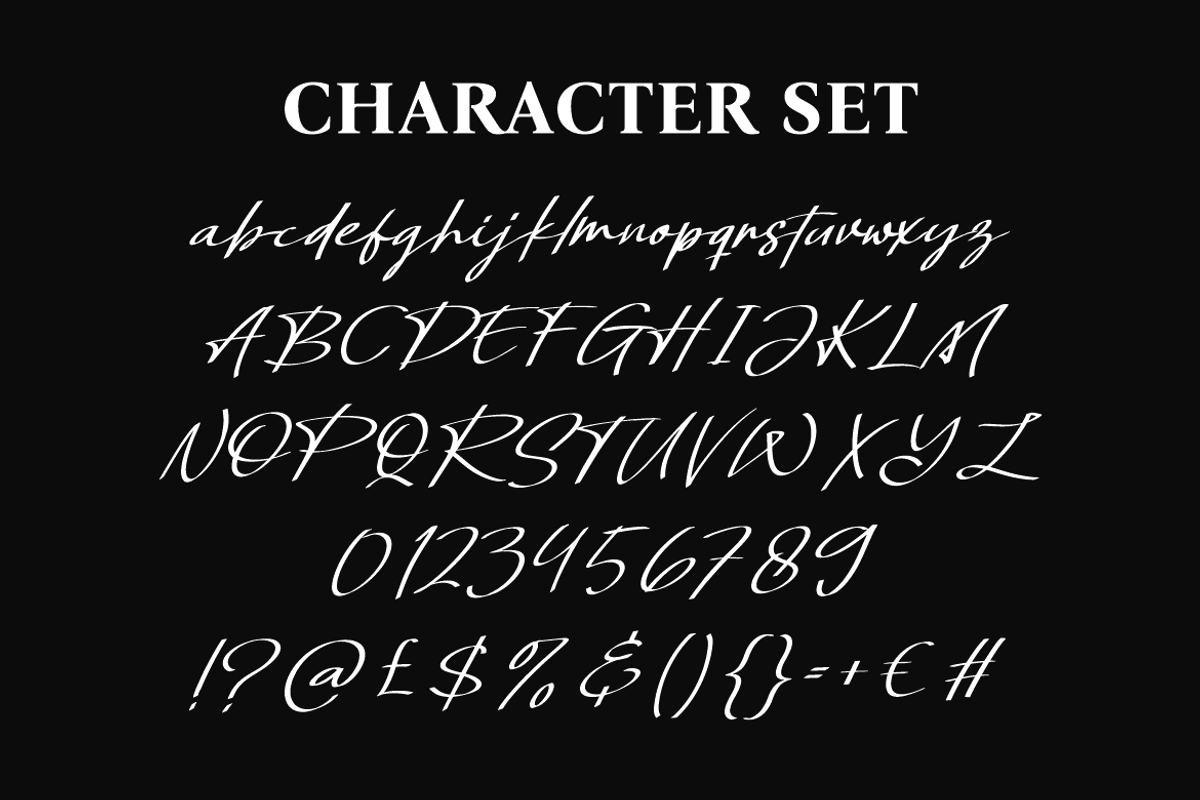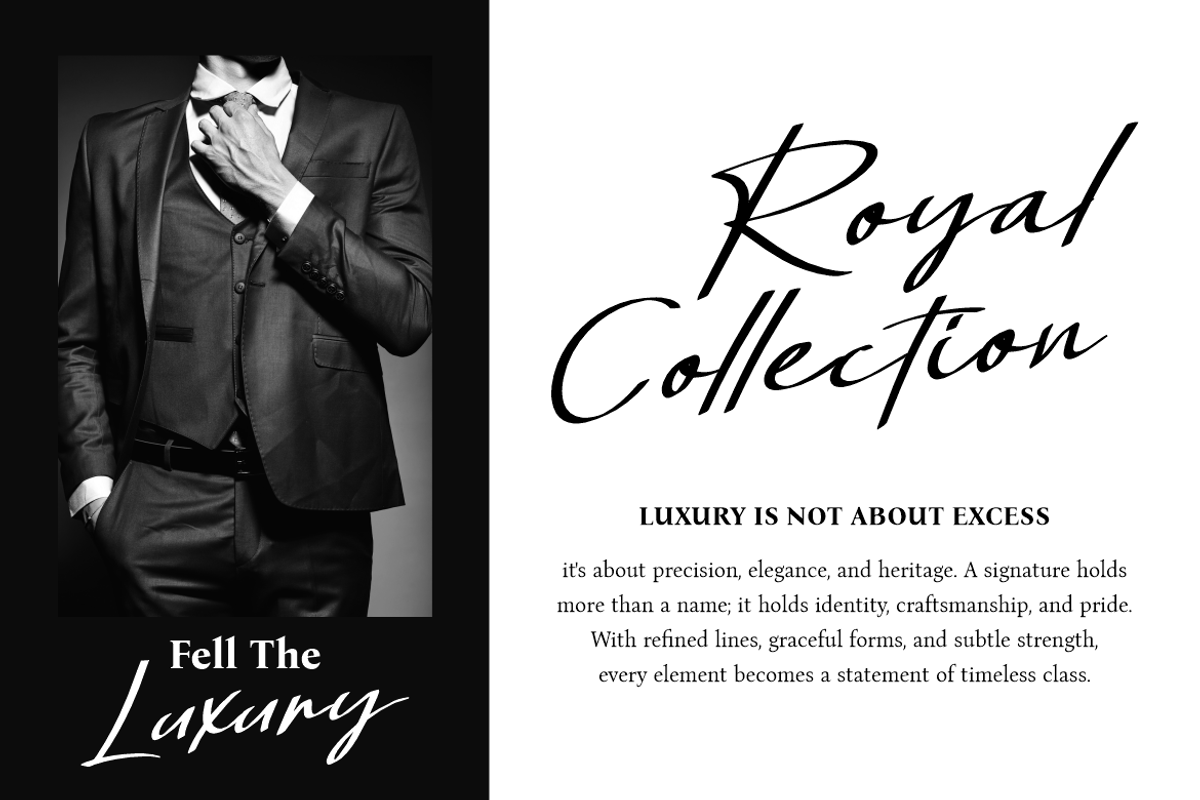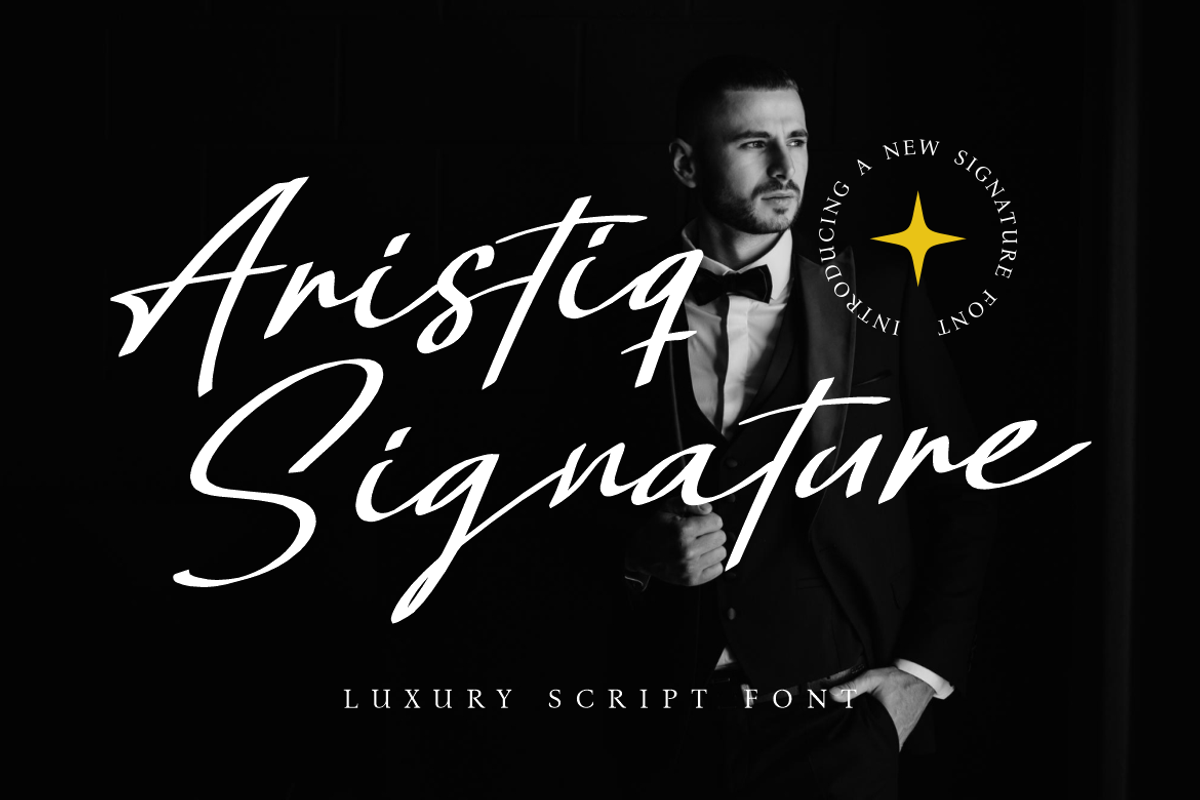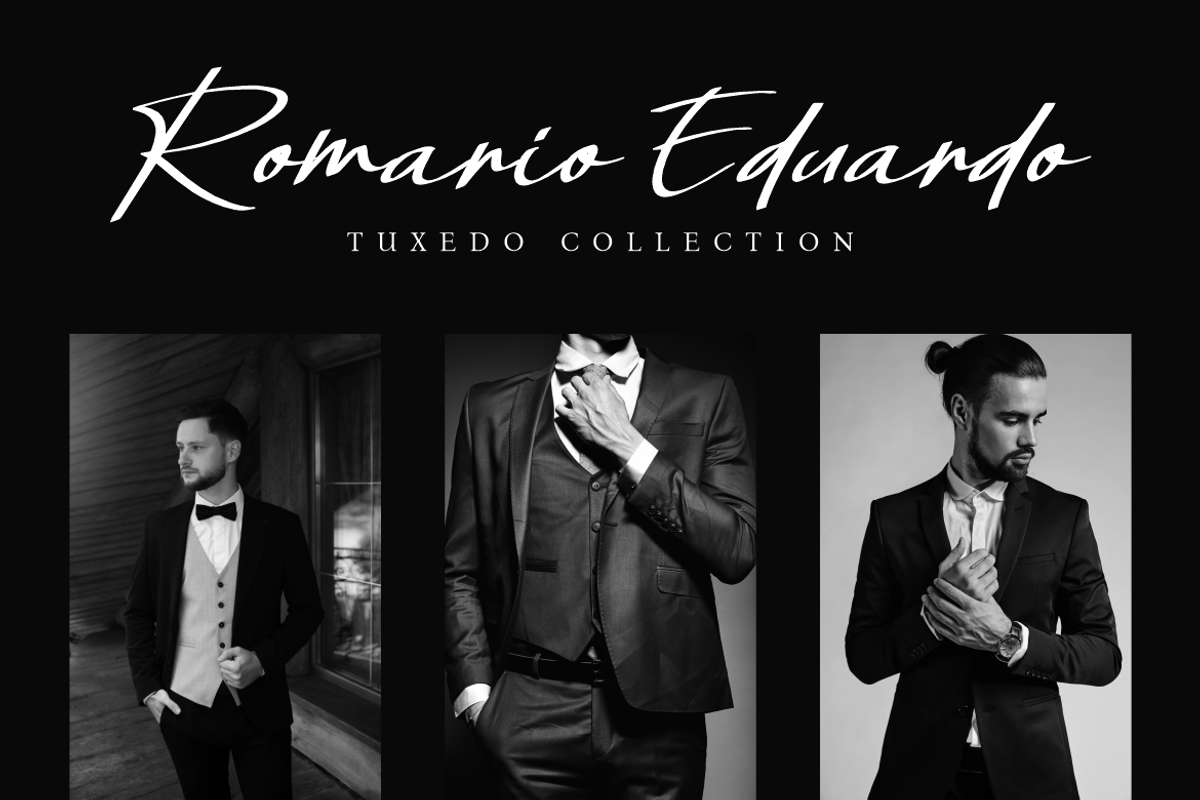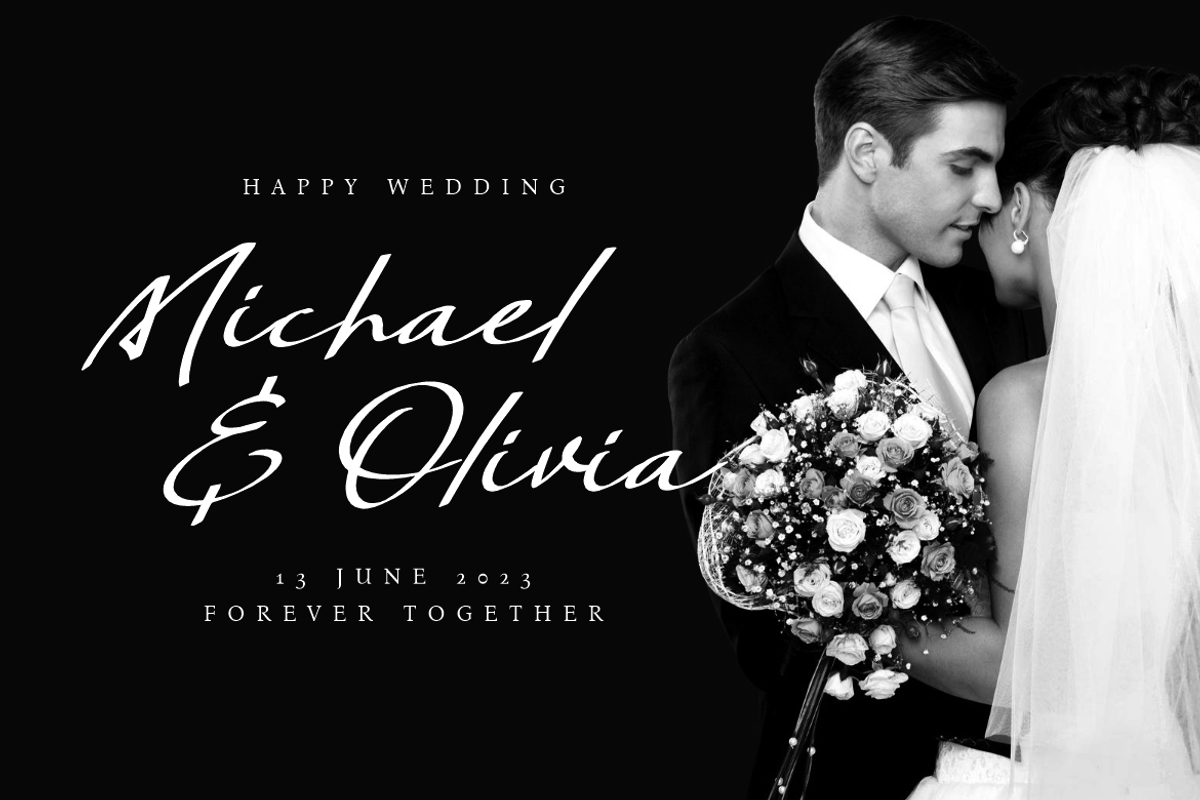
Aristiq Signature Luxury Script Font
Aristiq Signature Luxury Script Font embodies the perfect balance between refinement and authenticity. Each letter flows with natural handwritten curves, creating an elegant yet modern look. The thin upstrokes and bold downstrokes showcase a calligraphic touch that feels both personal and professional. Its flowing design mimics a genuine signature, making it ideal for projects that demand a sophisticated and exclusive appearance. From sleek wedding invitations to luxury product packaging, this font elevates every layout with its charm.
The script style emphasizes elegance, while its versatile readability ensures usability across digital and print designs. Aristiq Signature works beautifully for logos, personal branding, fashion labels, and editorial titles. Paired with minimalist layouts or rich black-and-white photography, it exudes prestige and timeless beauty. Every curve and flourish has been designed to highlight exclusivity, making this font an asset for projects that need to reflect identity, artistry, and elegance.